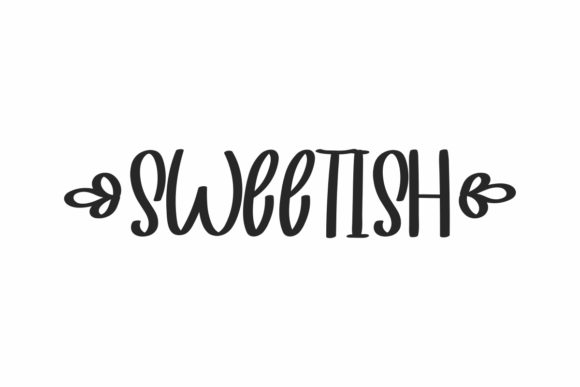
Step into the realm of captivating creativity with Sweetish Font, a whimsical and enchanting script crafted by the talented hands of NihStudio. With its charmingly handwritten style, Sweetish dances across the page like a summer breeze, adding a touch of whimsy to every design it graces.
Indulge in the innocence and warmth of Sweetish. Its gentle curves and flowing lines evoke a sense of nostalgia, inviting you to create designs that speak to the heart. Whether you're crafting heartfelt invitations, whimsical posters, or enchanting branding, Sweetish will effortlessly elevate your vision.
Experience the versatility of Sweetish. As a script font, it seamlessly blends with other typefaces, adding a touch of elegance to any layout. Its compact design makes it the perfect choice for headlines, subheadings, and any text that demands attention without overpowering the message.
Embrace the enchanting allure of Sweetish. Its amiable nature will captivate your audience, drawing them into your designs and leaving a lasting impression. Let Sweetish become your creative companion, guiding you to craft designs that resonate with emotion and ignite the imagination.